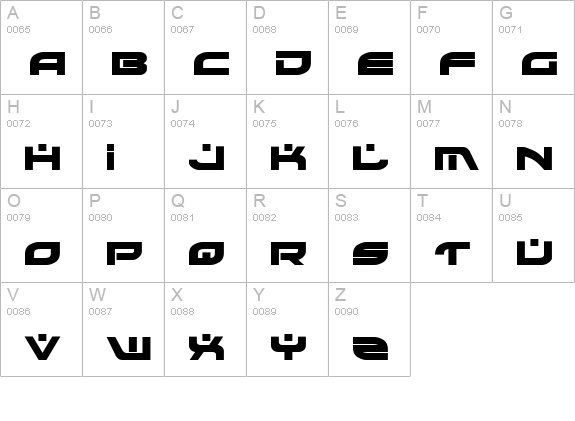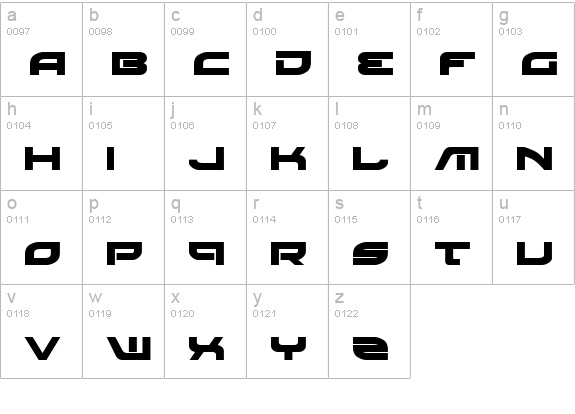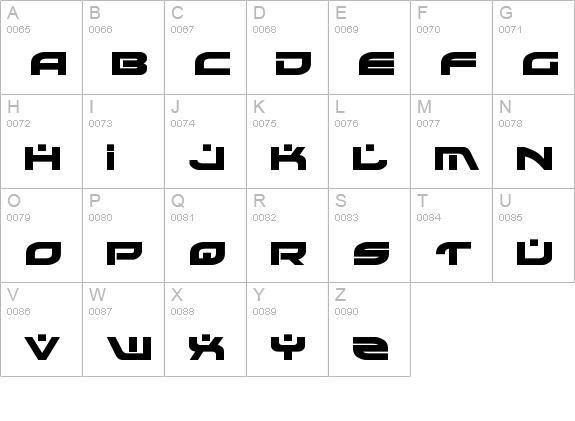
Battlefield Bold is a strong, high-contrast variant in the Battlefield typeface family \xE2\x80\x94 well suited to headlines, attention-grabbing titles, and strong calls-to-action.
Introducing Battlefield Bold font, a powerful and commanding typeface that exudes strength and confidence. With its bold and striking letterforms, this font is perfect for making a bold statement in any design project. Whether you're creating posters, logos, or headlines, Battlefield Bold font will grab attention and leave a lasting impression. And the best part? Battlefield Bold font is available for free download at FontsMarket.com. That's right, you can add this impressive font to your collection without spending a penny. Don't miss out on this opportunity to elevate your designs with the striking presence of Battlefield Bold font. Download it now and unleash your creativity!